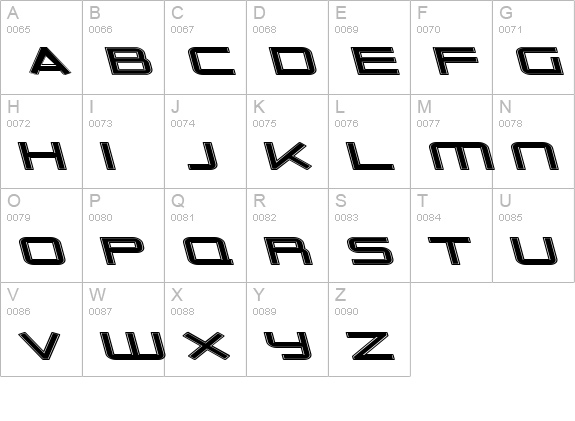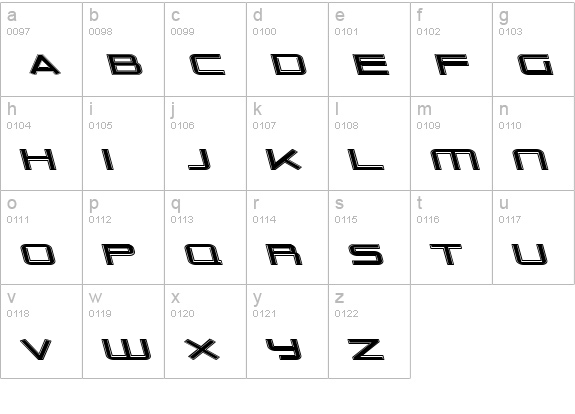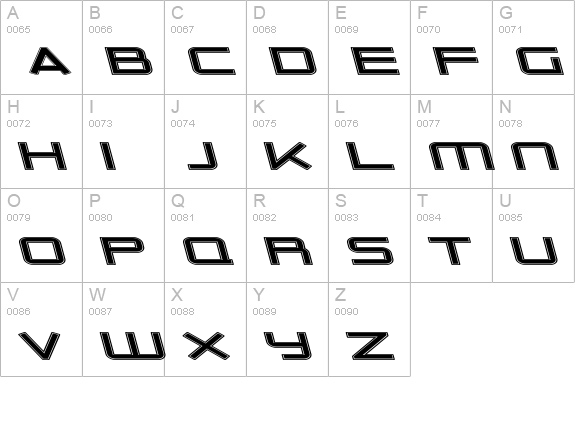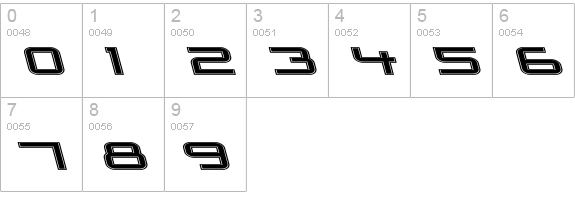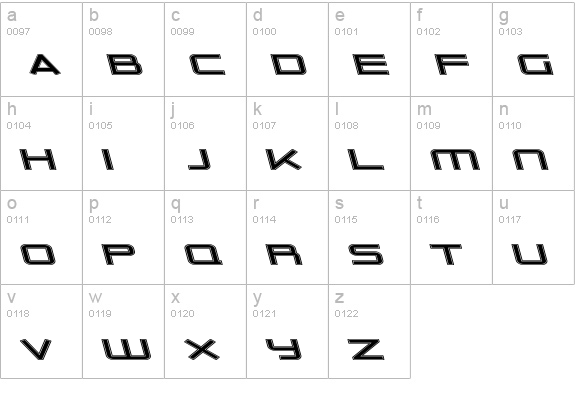
Outer Limits Extended Italic is a distinctive, extended-width, italic variant in the Outer typeface family \xE2\x80\x94 well suited to design and typography projects.
Outer Limits Extended Italic font is a stunning display typeface that exudes a sense of modernity and sophistication. Its sleek and elongated letterforms are perfect for creating eye-catching headlines and graphic designs that demand attention. The italicized style adds a touch of elegance and flair to any project. What makes Outer Limits Extended Italic font even more appealing is that it is available for free download at FontsMarket.com. This means you can easily access this high-quality font and incorporate it into your design projects without any cost. Whether you're working on branding materials, posters, or digital graphics, Outer Limits Extended Italic font will elevate your designs and make them stand out. Don't miss out on the opportunity to enhance your creative projects with the sleek and modern look of Outer Limits Extended Italic font. Download it for free today at FontsMarket.com and take your designs to the next level.